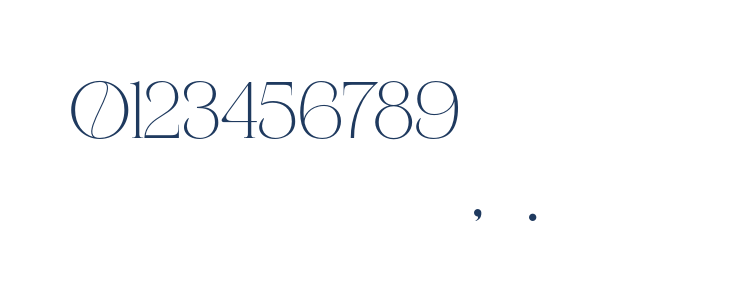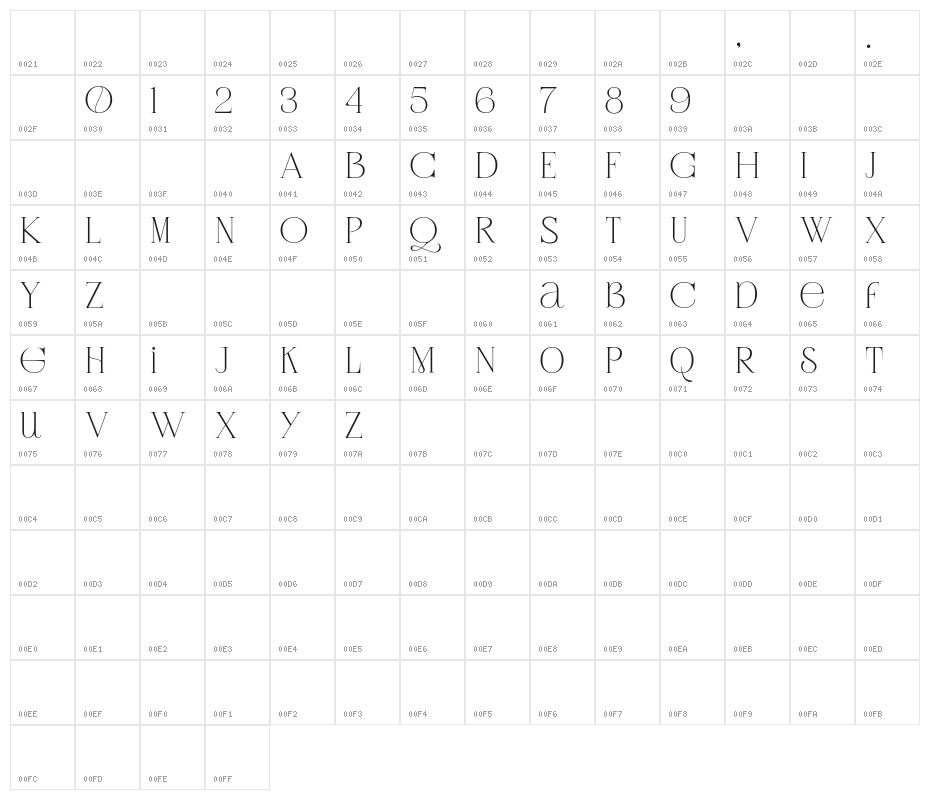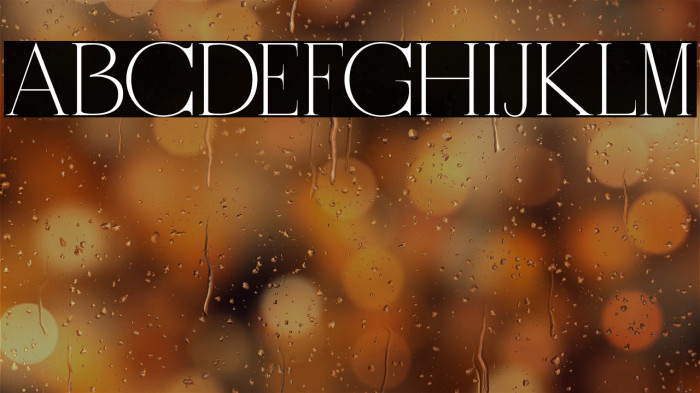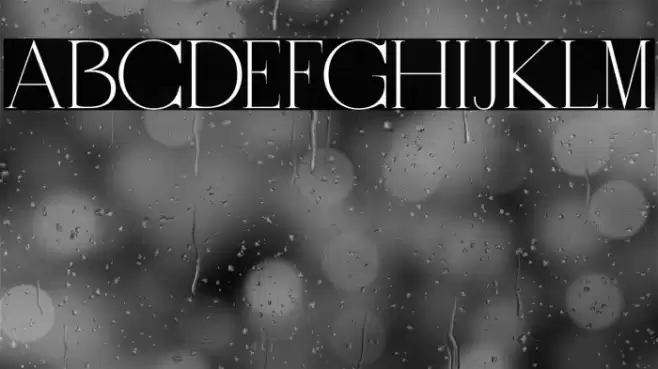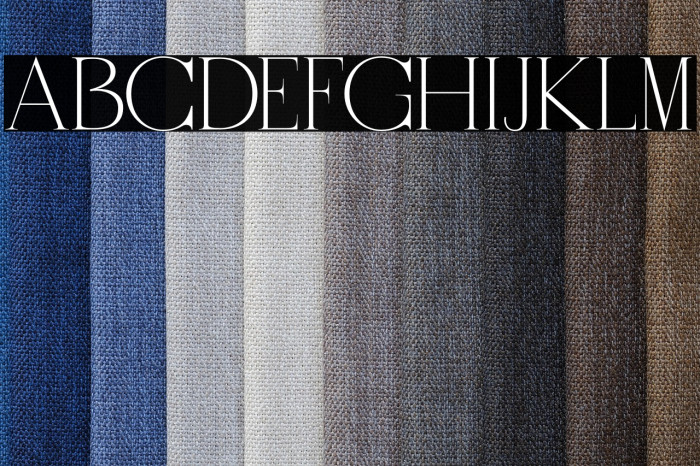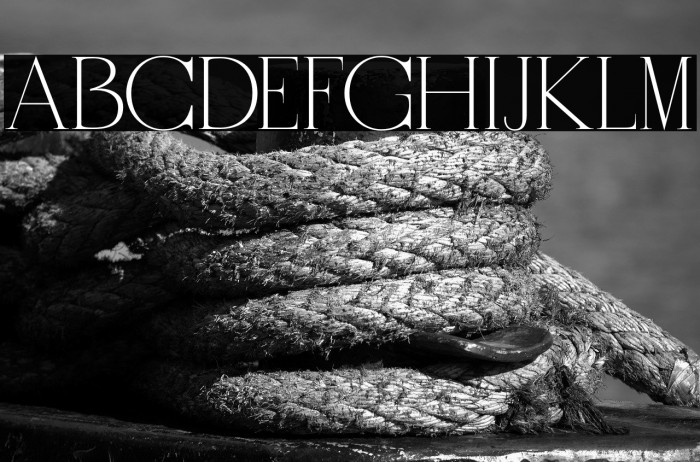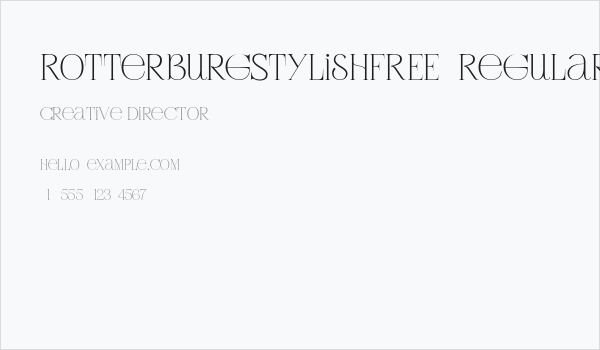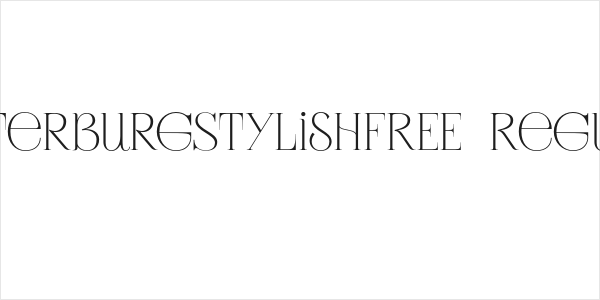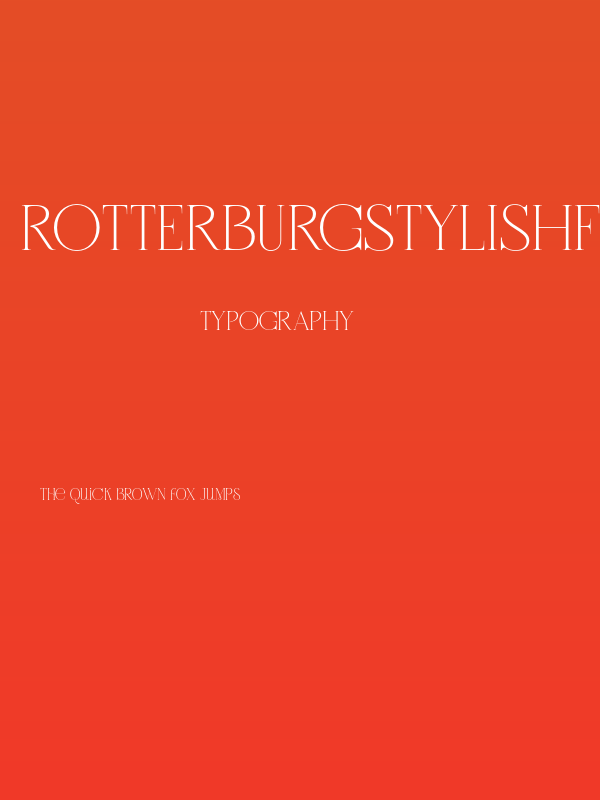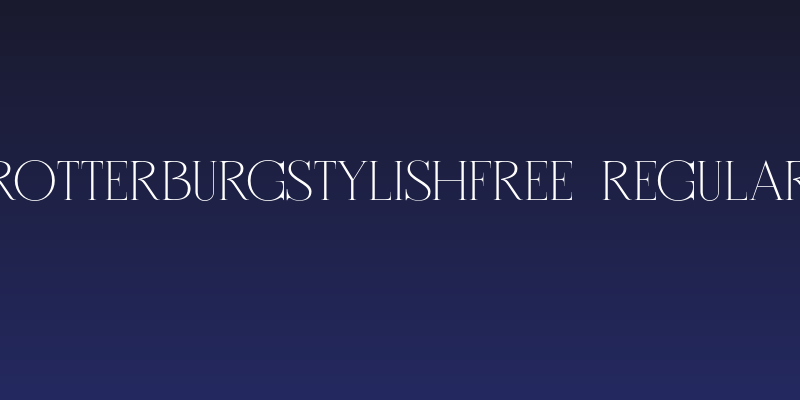
RotterburgStylishFREE-Regular Font
RotterburgStylishFREE-Regular Description
This font features a sophisticated and elegant design with a modern twist. The characters are crafted with a high contrast between thick and thin strokes, giving it a refined and stylish appearance. The uppercase letters exhibit a unique flair with subtle curves and sharp edges, while the lowercase letters maintain a consistent and harmonious flow. The numerals are distinct and complement the overall aesthetic, making it suitable for a variety of design applications. The special characters are thoughtfully integrated, enhancing the font's versatility.
| Proposed Projects | Ideal for luxury branding, editorial design, fashion magazines, and elegant invitations. |